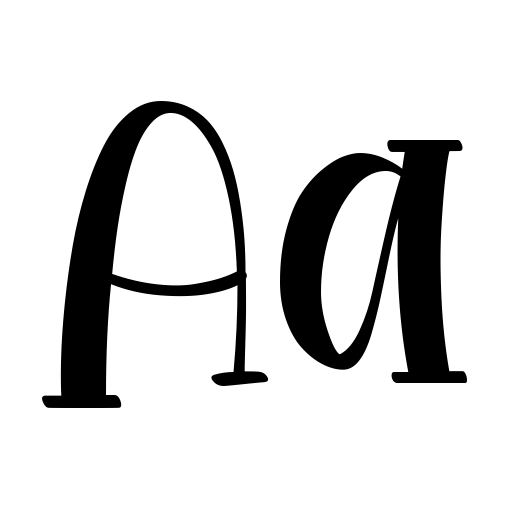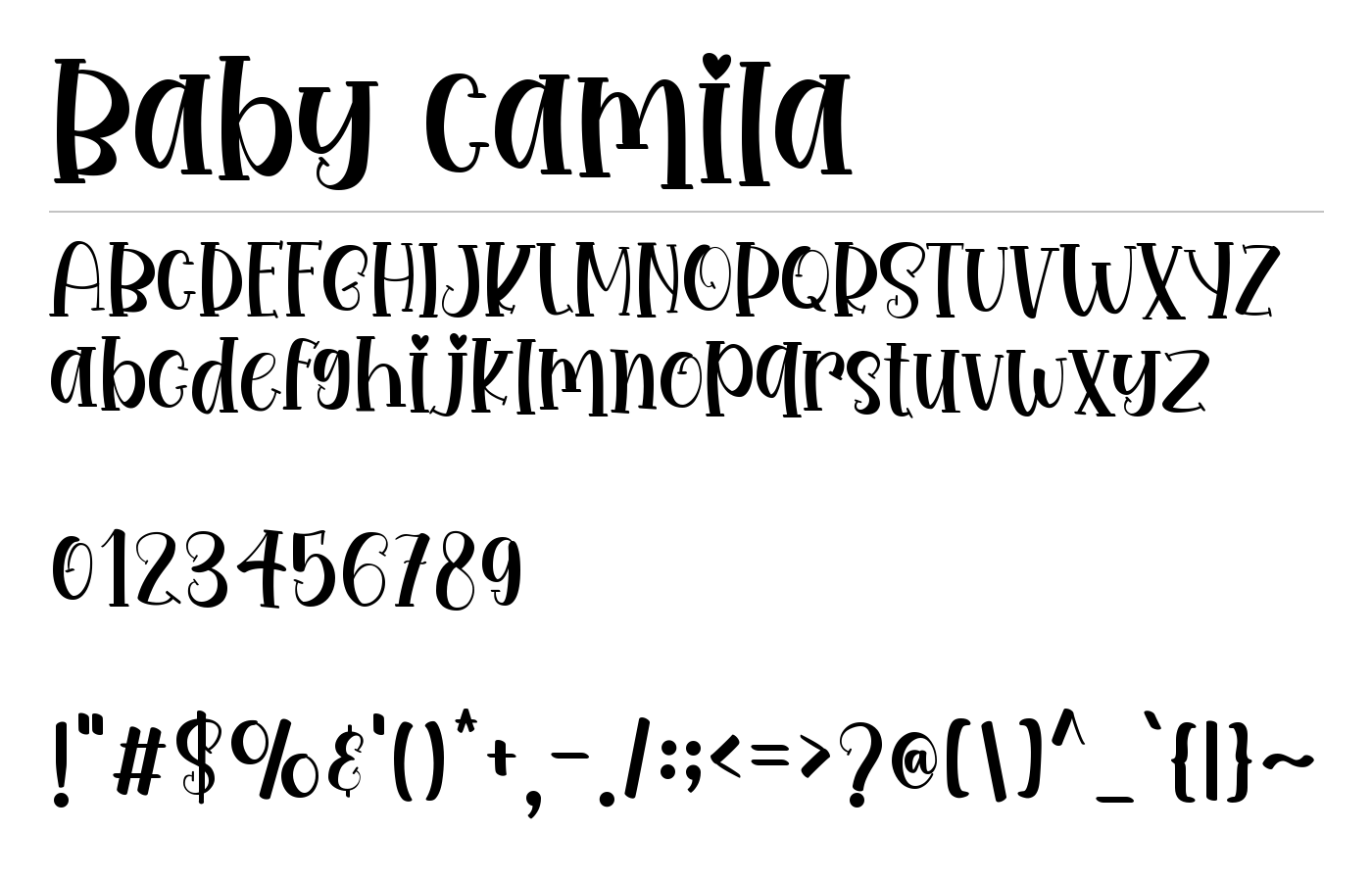
Baby Camila is a playful and whimsical serif font with a hand-drawn feel, featuring tall, narrow letterforms with charming curls and heart-shaped details. Its light contrast and quirky strokes give it a friendly, informal personality, making it ideal for children’s books, playful branding, and creative projects that want to convey warmth and fun. This font works well in headlines, packaging, and invitations where a lively, approachable style is needed.
Baby Camila Font
About Baby Camila Font